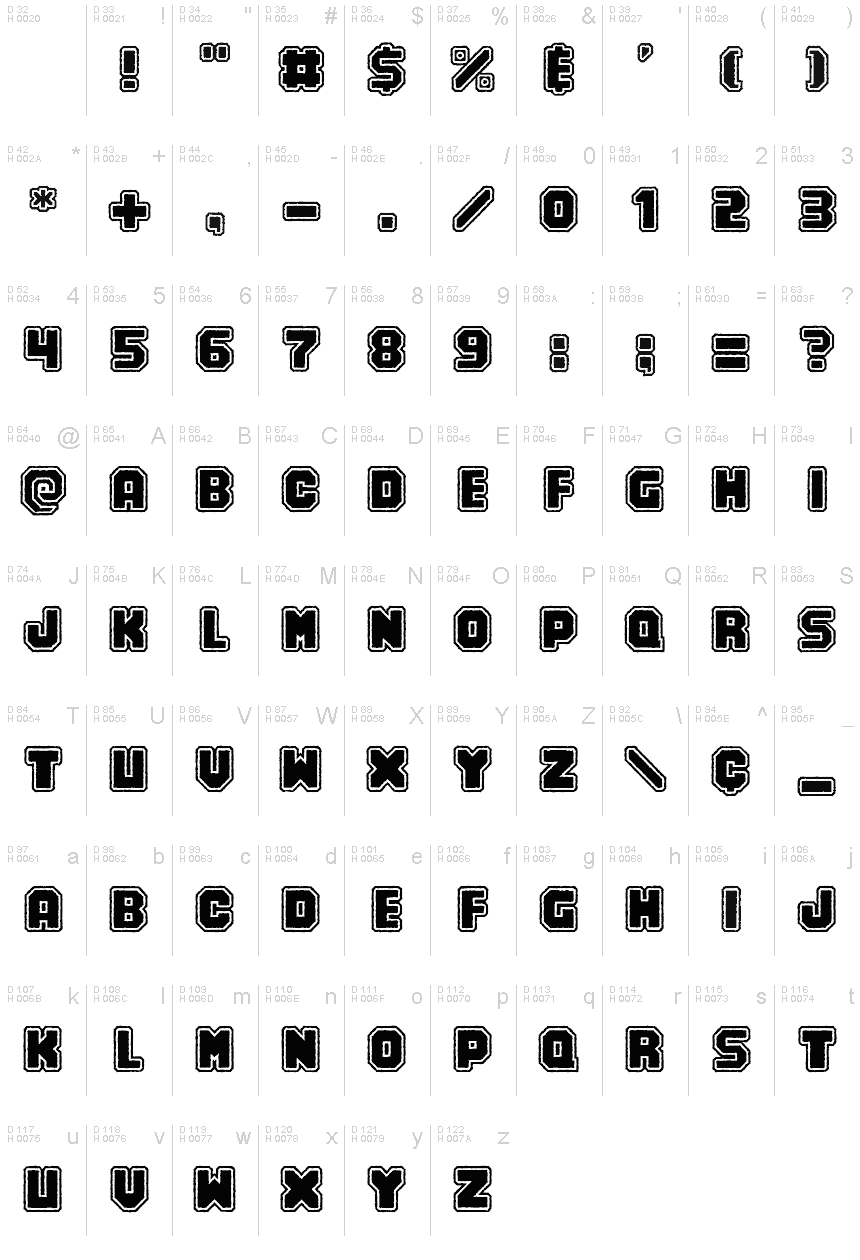
Numero 10 Clean
Numero 10 Clean is a bold, retro-inspired display font that exudes a vintage industrial aesthetic. Designed by imagex, this font features clean, geometric letterforms with a touch of grunge, creating a striking visual impact. The strong, all-caps style lends itself well to headlines, logos, and eye-catching typographic compositions, making it a versatile choice for a variety of design applications, from packaging and branding to editorial and advertising layouts.
Numero 10 Clean's distinct character and robust personality make it an excellent selection for projects seeking a nostalgic, yet modern, design sensibility.